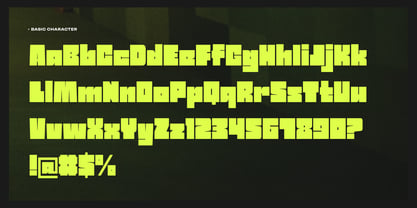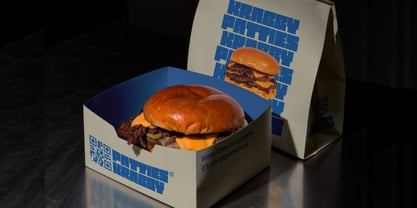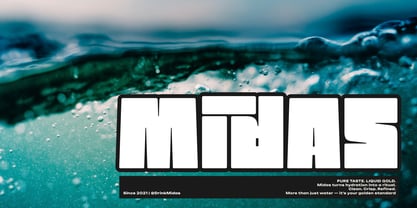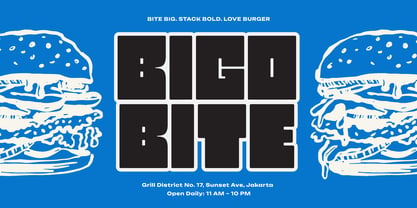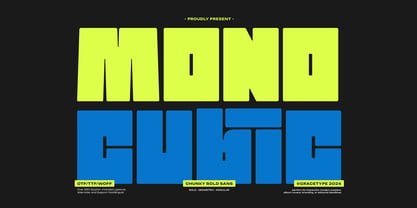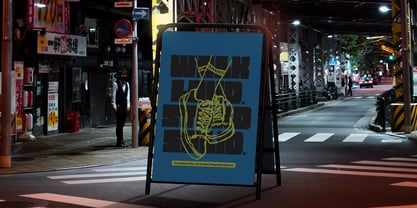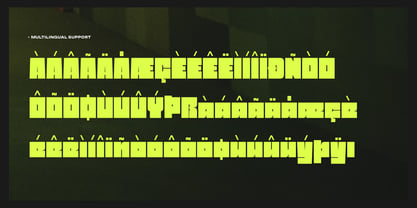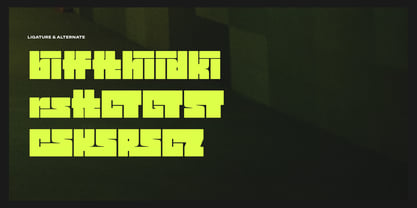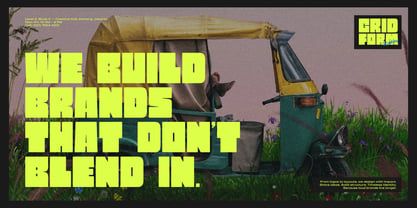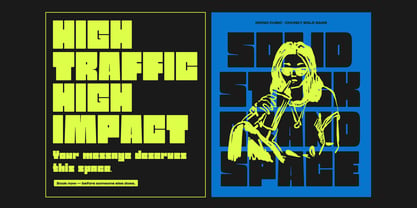
Mono Cubic
Mono Cubic | Chunky Bold Sans, from Gracetypestudio, suitable for any projects such as: logos, branding projects, homeware designs, product packaging, mugs, quotes, posters, shopping bags, t-shirts, book covers, name card, invitation cards, greeting cards, label, photography, watermark, special events, and all your other lovely projects that need a Chunky Bold Sans taste.
• Regular and Italic
• Alternate and Ligature
• Fonts include multilingual support